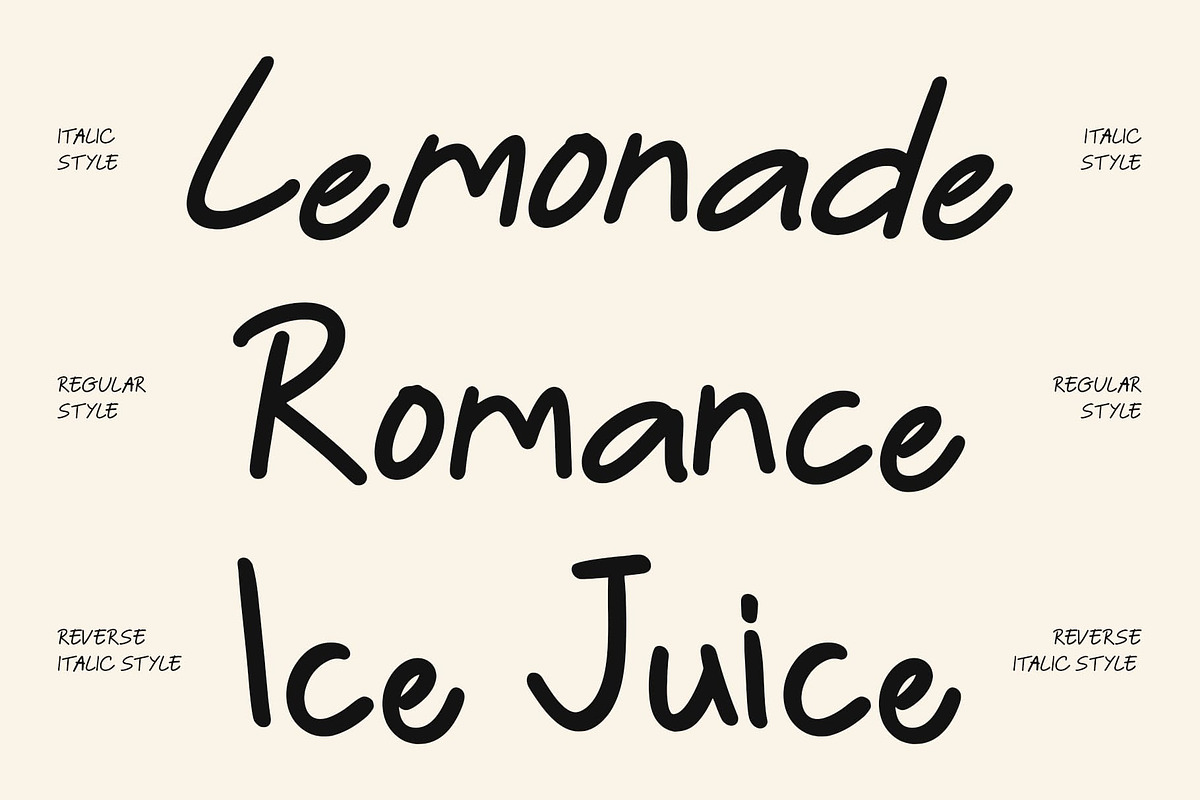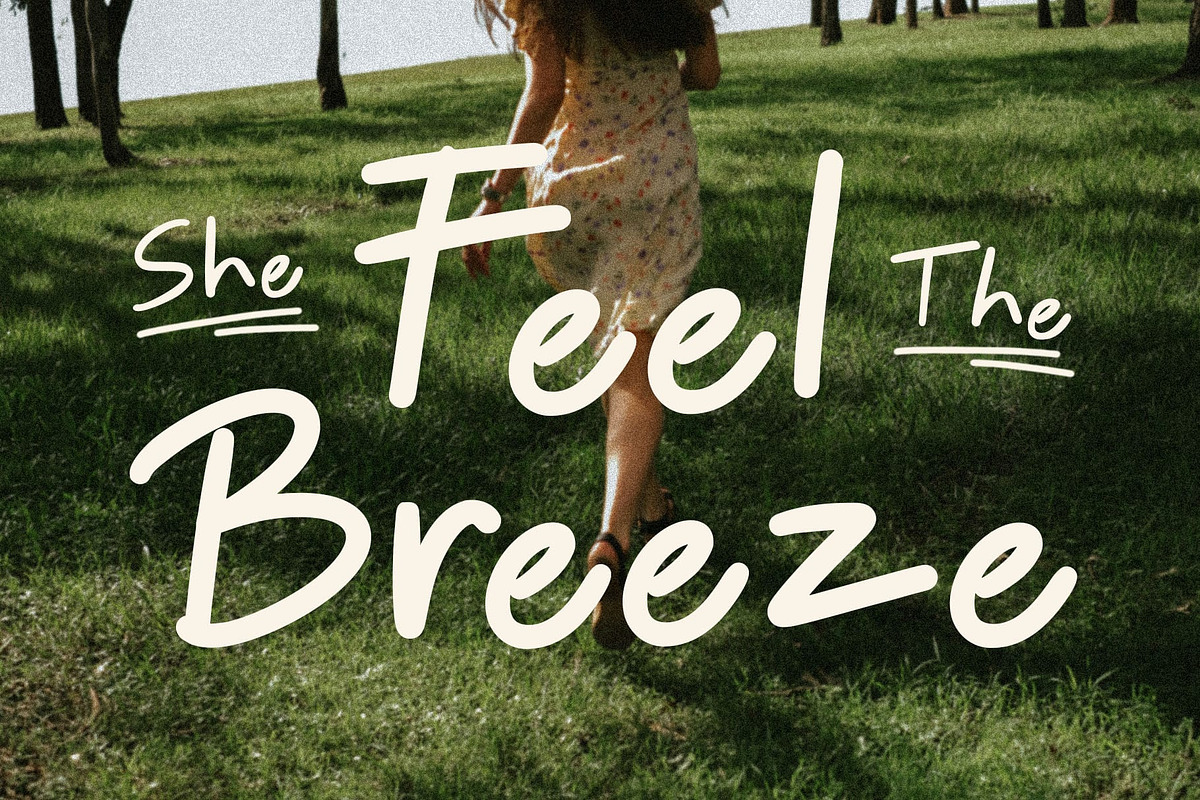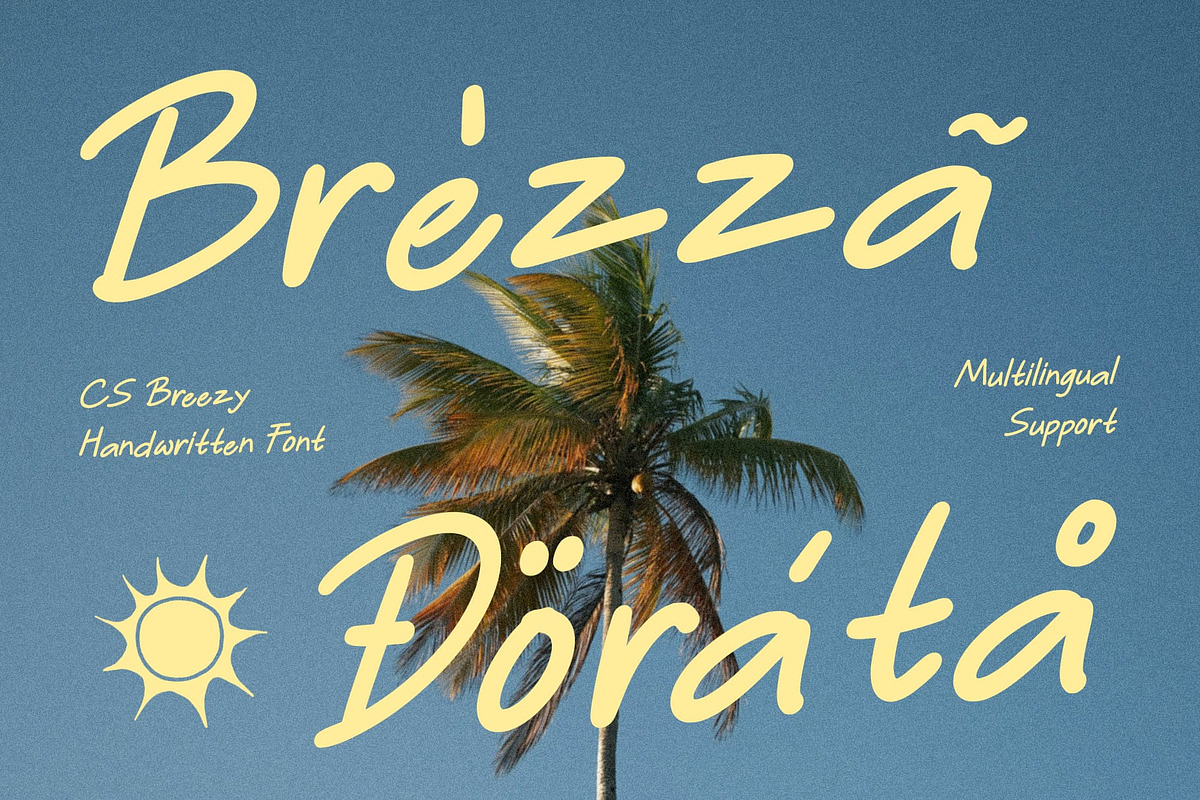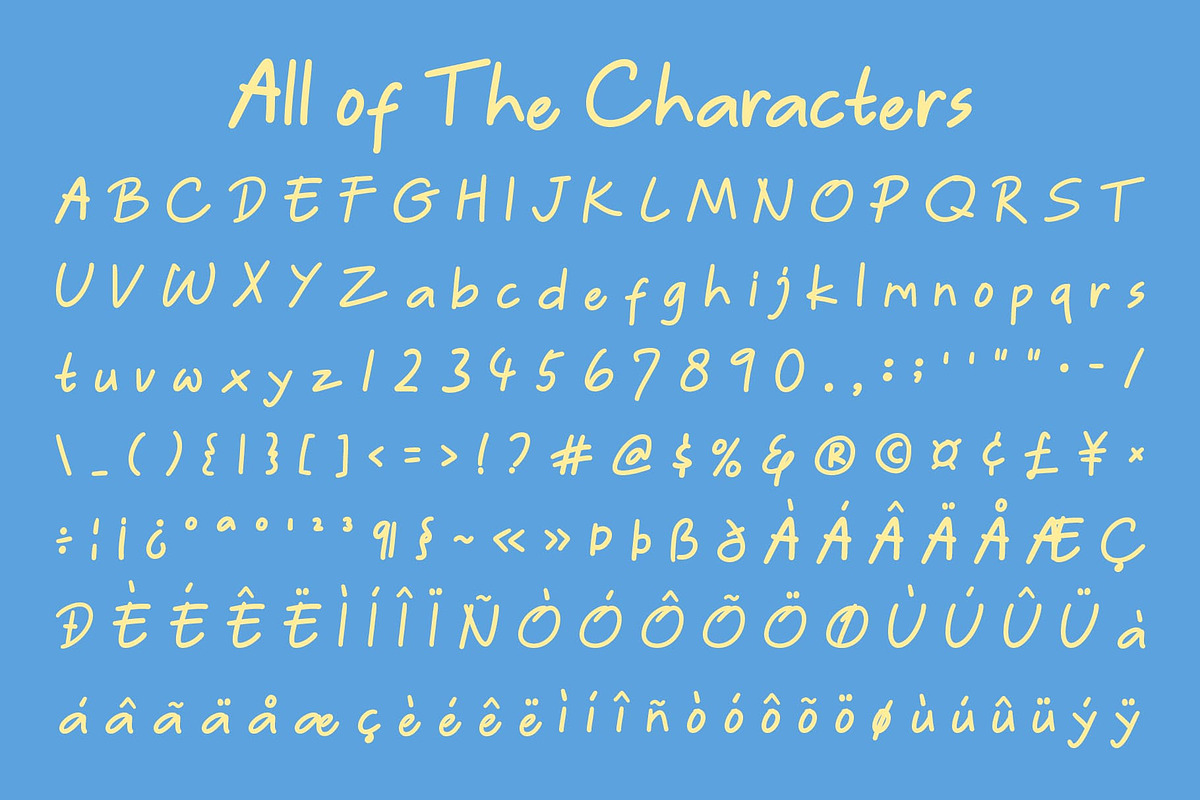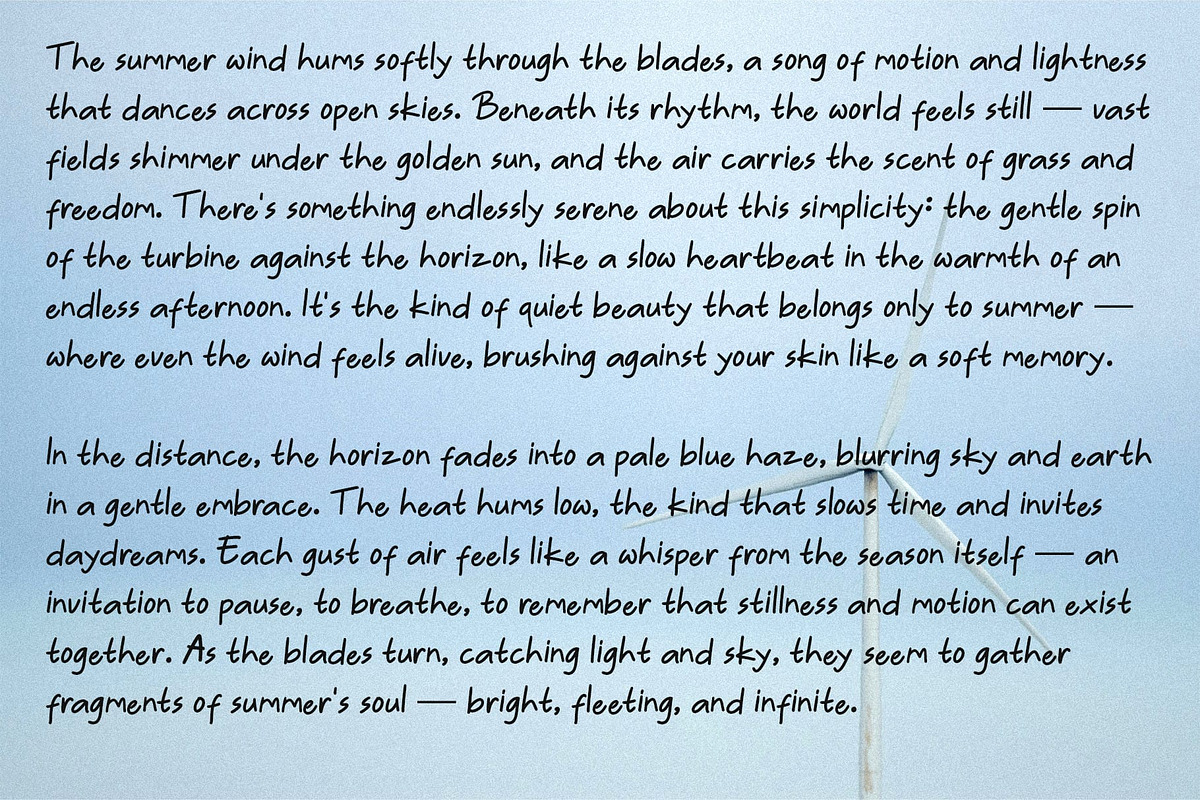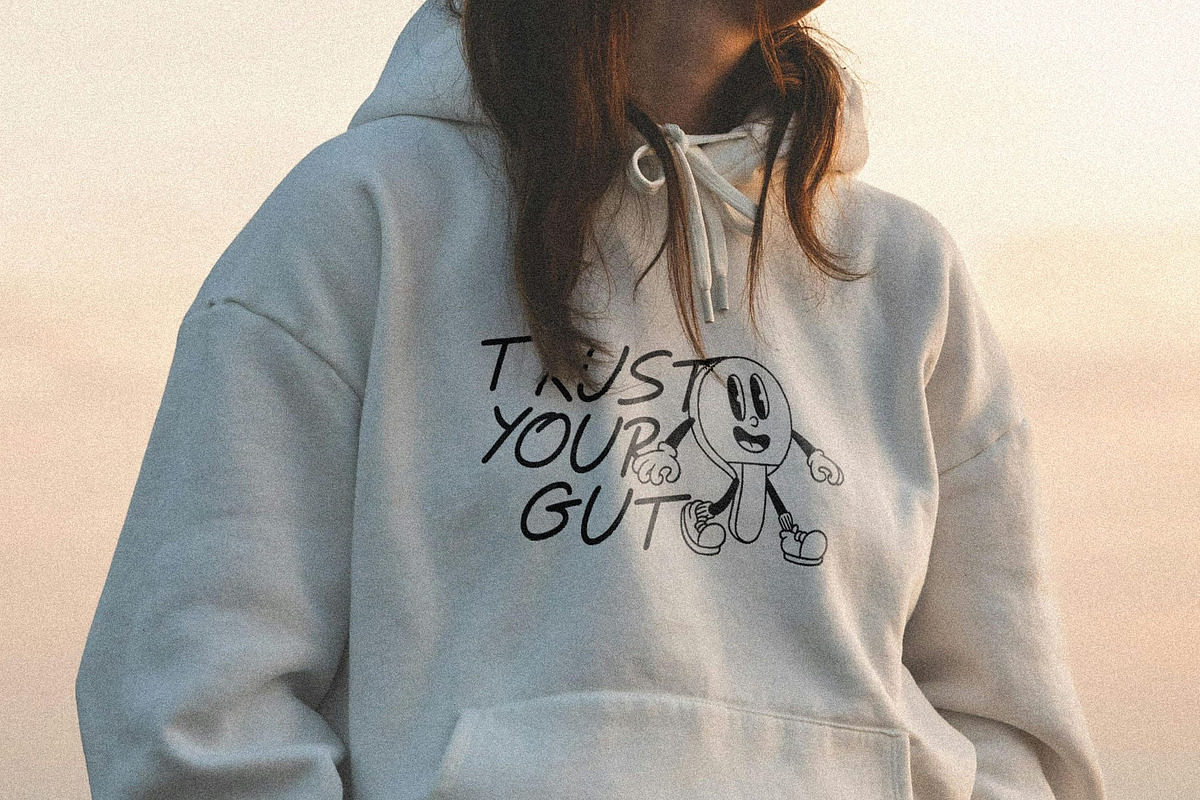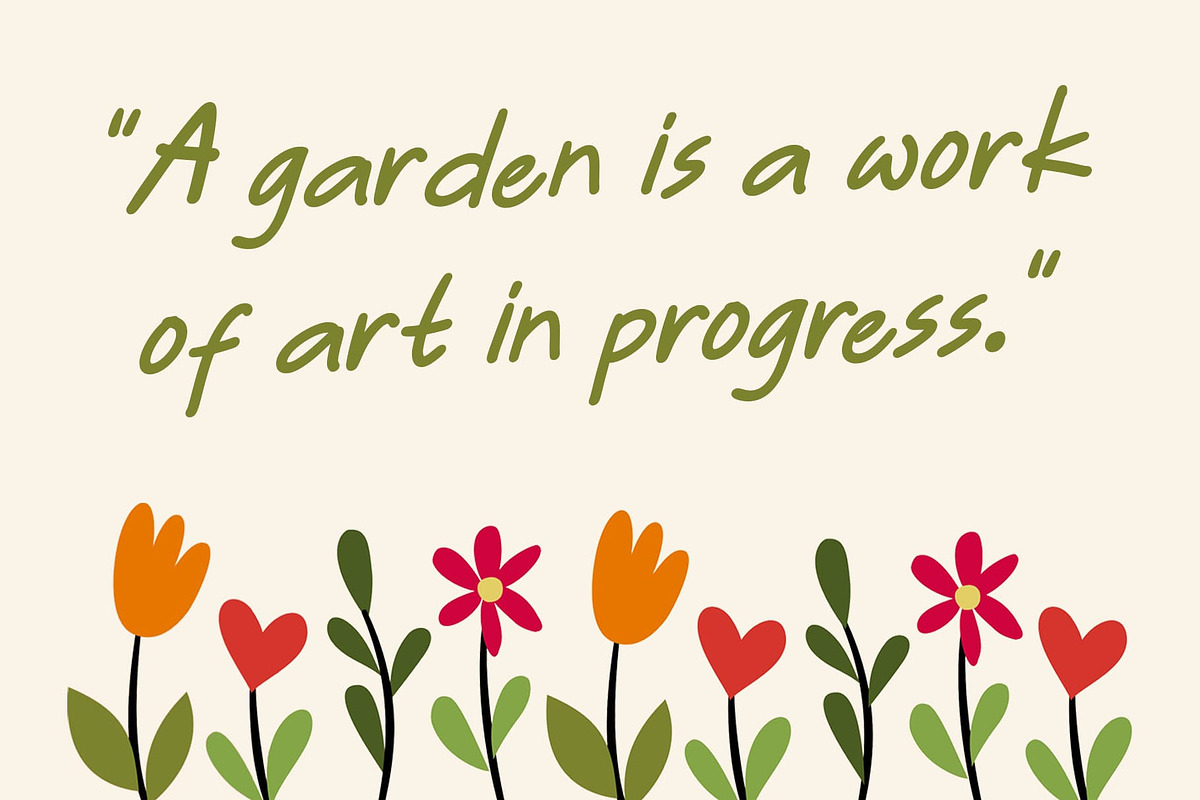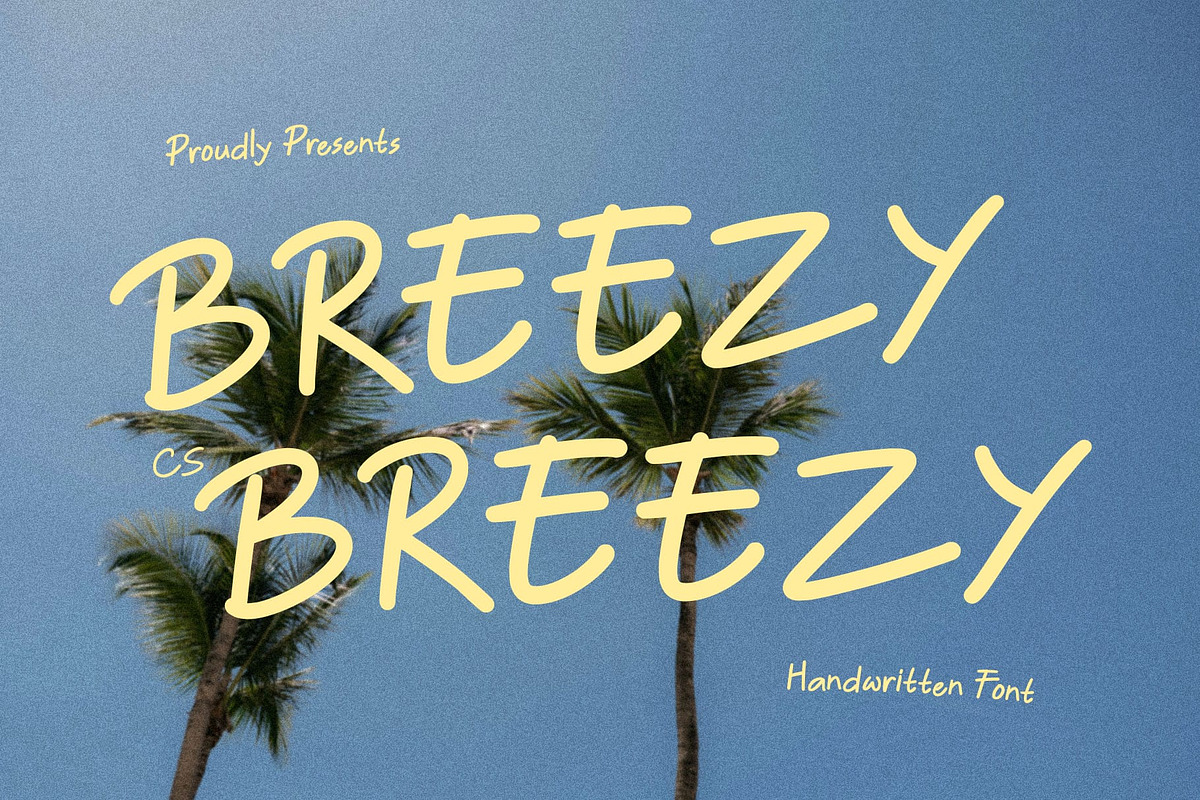
CS Breezy – Handwritten Font
CS Breezy: Fresh Energy with a Handwritten Touch
Handwritten Sans Serif Font with a Springtime Vibe This is a bright and lively handwritten sans serif font that captures the essence of freshness and renewal. With its clean yet playful strokes, it radiates a natural, uplifting energy reminiscent of spring blossoms. Designed to bring positivity and charm, adds a breezy, joyful feel to any creative project.
Playful Simplicity for Fresh Designs The sans serif form gives this font a modern, uncluttered appearance, while its handwritten flow introduces warmth and character. This balance of clarity and spontaneity makes it a delightful choice for designs that want to feel light, airy, and full of life. Its fresh visual rhythm enhances every message with a sense of optimism and creativity.
Spring-Inspired Character for Joyful Appeal This font embodies the cheerful spirit of spring vibrant, renewing, and full of motion. Each letter dances with a gentle rhythm, evoking natural beauty and positivity. Perfect for seasonal campaigns, wellness brands, or lifestyle content, it helps your design bloom with brightness and grace.
Perfect for Greeting Cards and Invitations From seasonal branding to charming invitations and heartfelt greeting cards, adds a touch of joyful elegance to every layout. Its handwritten personality and airy structure make it versatile across digital and print designs. With this font, your words feel fresh, friendly, and effortlessly full of life.
- CS Breezy Regular
- CS Breezy Italic
- CS Breezy Reverse Italic